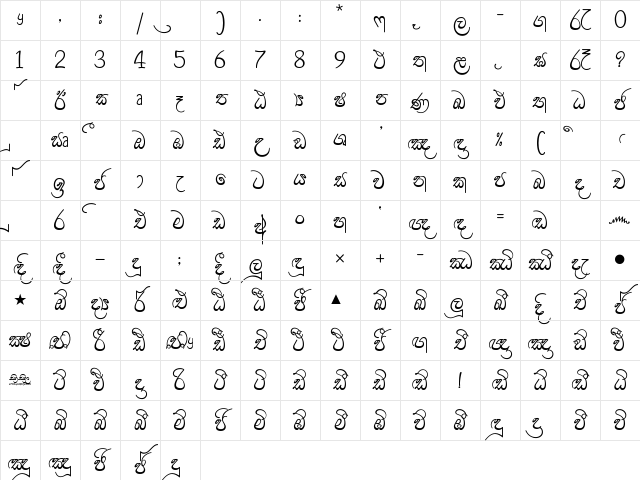
Complete SINHA Nimsara 2012 Regular glyph index. Displaying only characters natively supported by SINHA Nimsara 2012 Regular font.
SINHA Nimsara 2012 is a composed and adaptable typeface that performs quietly and consistently across a wide range of design contexts.